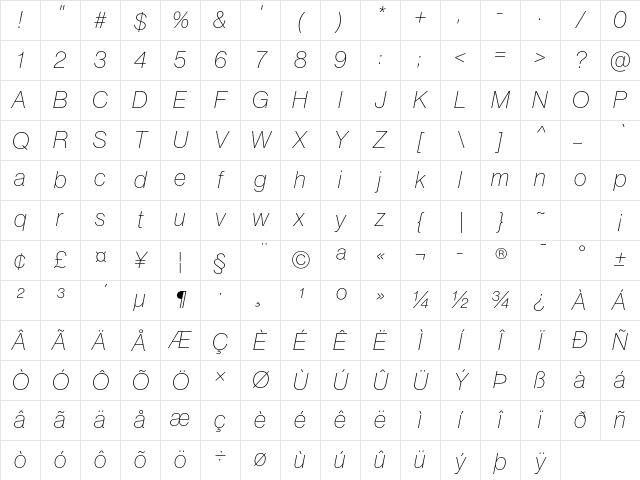
Neue Haas Grotesk D W0426 Italic
Designer: Christian Schwartz
Design Context for Neue Haas Grotesk D W0426
Neue Haas Grotesk D W0426 takes a clean, functional approach - its unadorned letterforms prioritise legibility and work reliably across screen and print environments. The slanted form adds forward momentum and visual energy.
Font Pairing: Works well alongside a characterful serif or display font that can carry the expressive load while Neue Haas Grotesk D W0426 handles the functional copy.
Pro Tip: Use Neue Haas Grotesk D W0426 for UI labels, navigation, and short-form body copy where clean legibility is the priority.